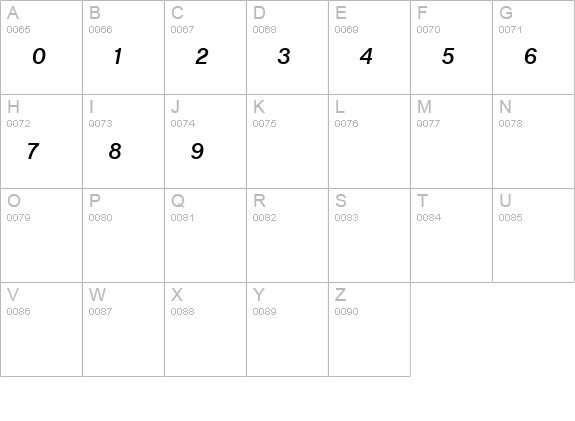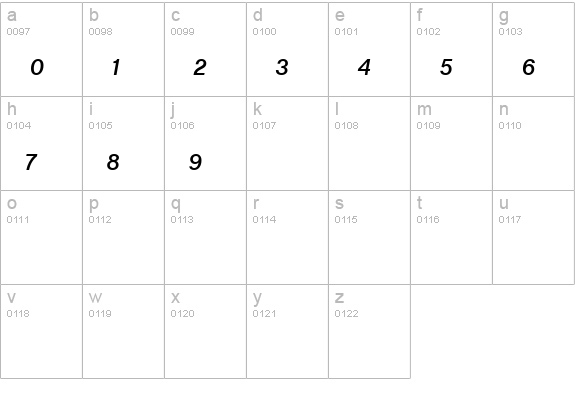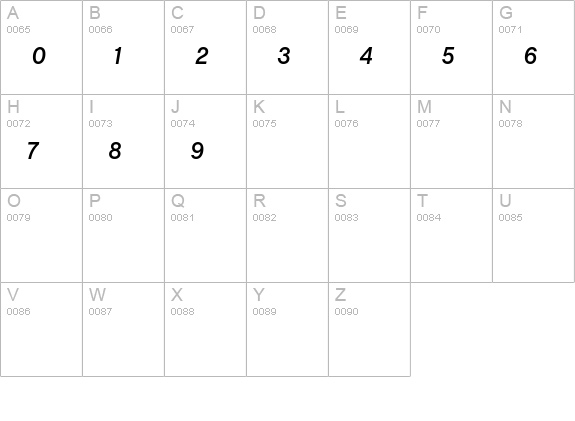
ChaletBookTTFrac Italic Font Details
ChaletBookTTFrac Italic is a distinctive, italic variant in the ChaletBookTTFrac typeface family \xE2\x80\x94 well suited to design and typography projects.
ChaletBookTTFrac Italic font is a stylish and elegant typeface that exudes sophistication and modernity. Its sleek and slanted italic design adds a touch of flair to any text, making it perfect for use in creative projects, branding, and editorial design. The soft curves and clean lines of this font create a harmonious balance that is both visually appealing and easy to read. What makes ChaletBookTTFrac Italic font even more appealing is that it is available for free download at FontsMarket.com. This means you can easily access and use this beautiful typeface in your projects without any cost. Whether you're a designer looking to elevate your designs or a writer wanting to add a touch of elegance to your words, ChaletBookTTFrac Italic font is a versatile choice that will surely enhance your work. Experience the beauty and versatility of this font today by downloading it for free at FontsMarket.com.